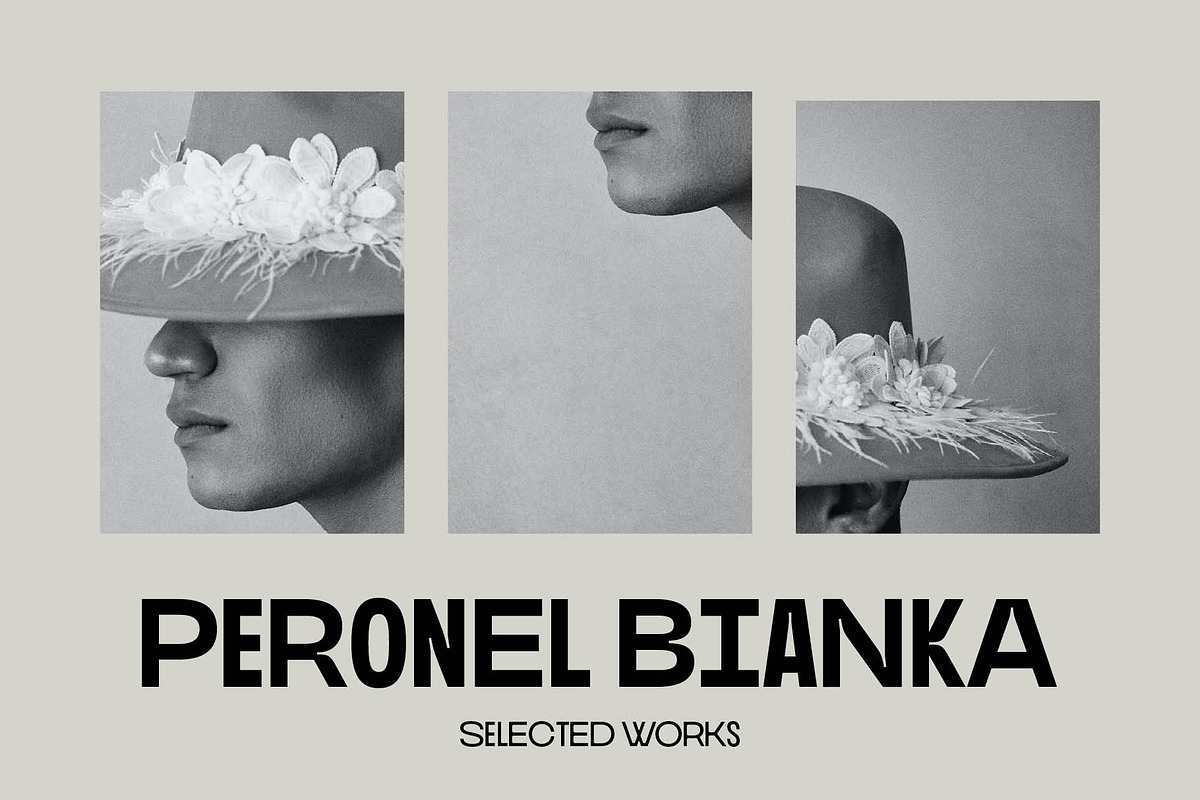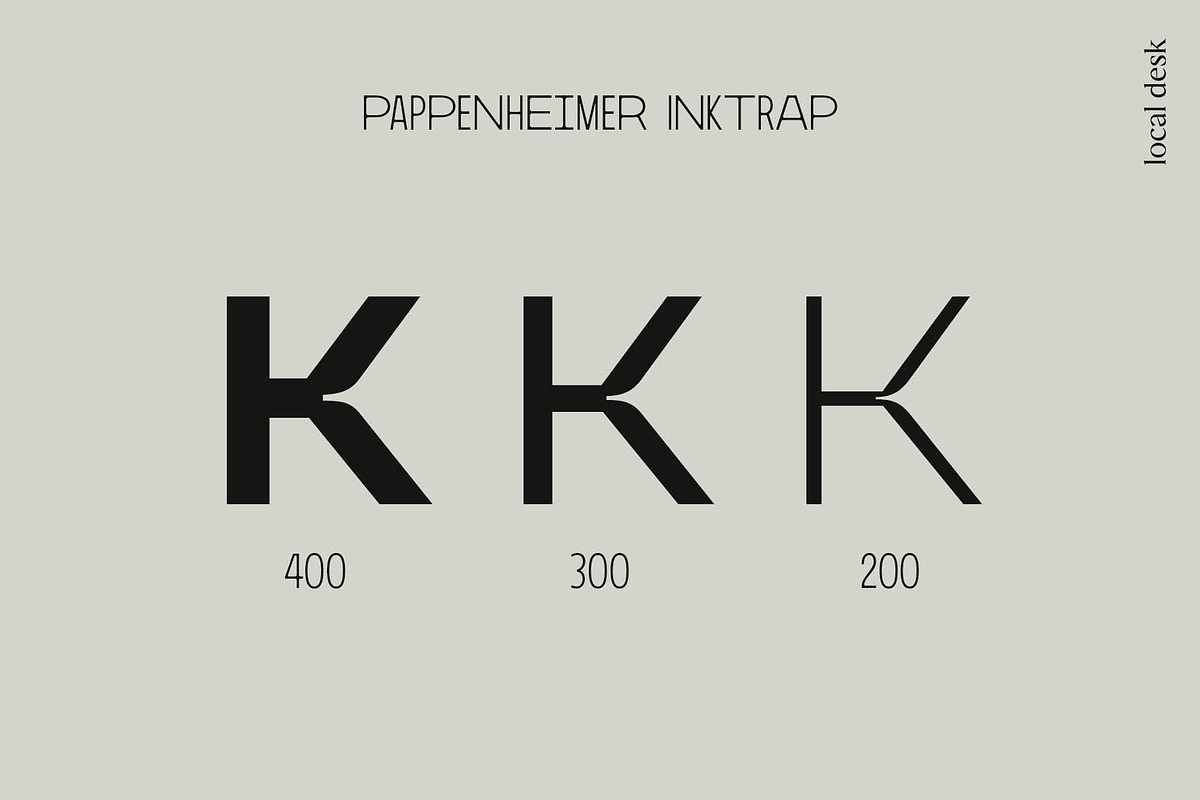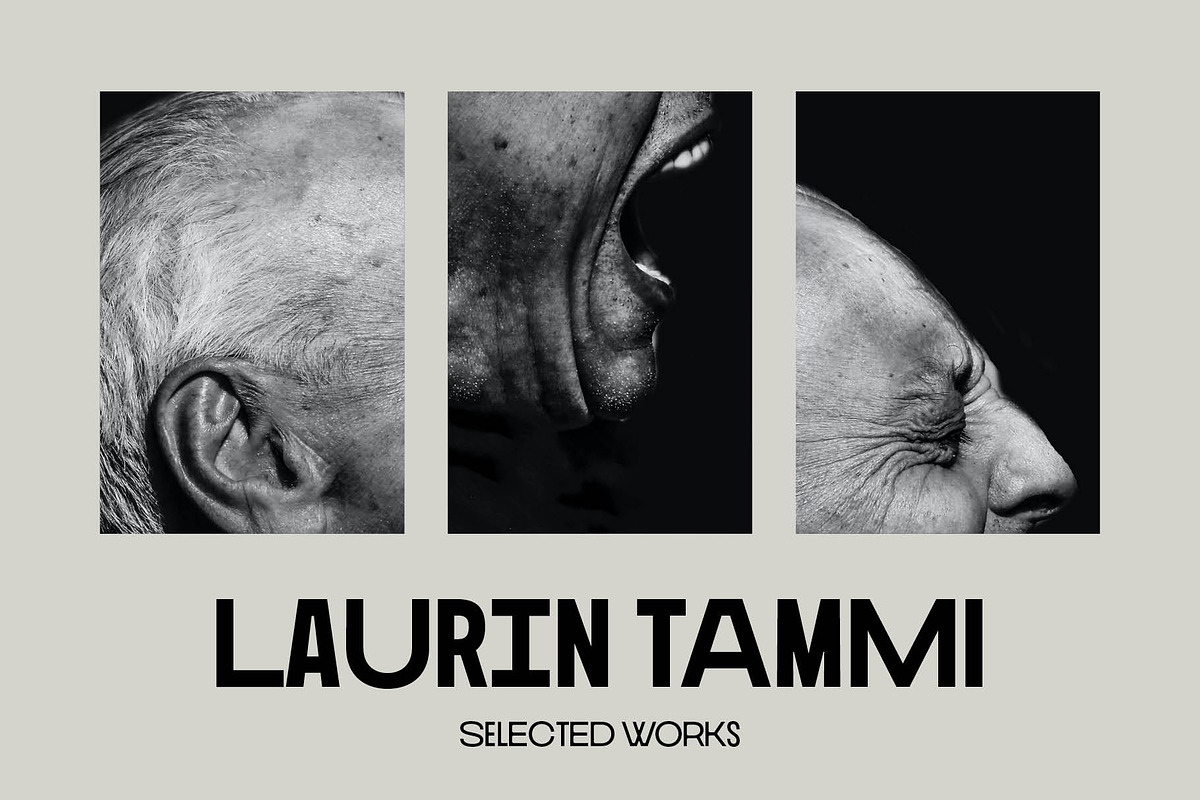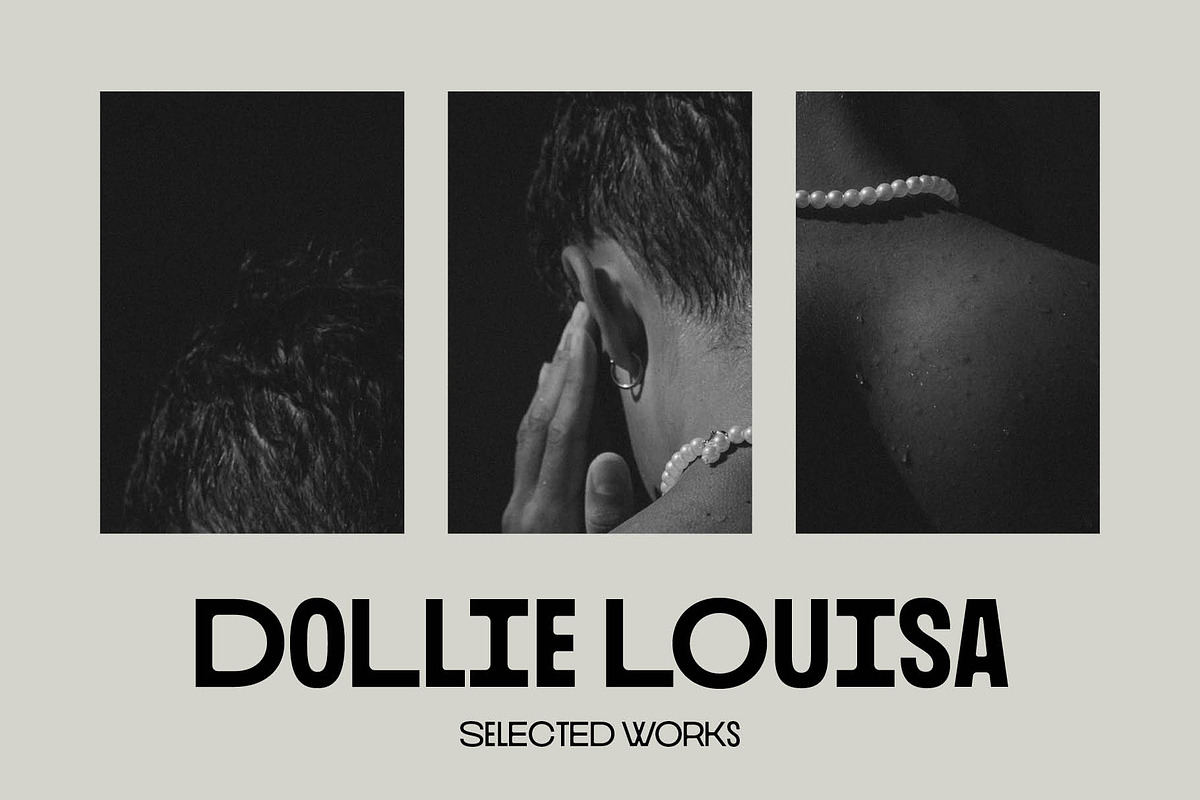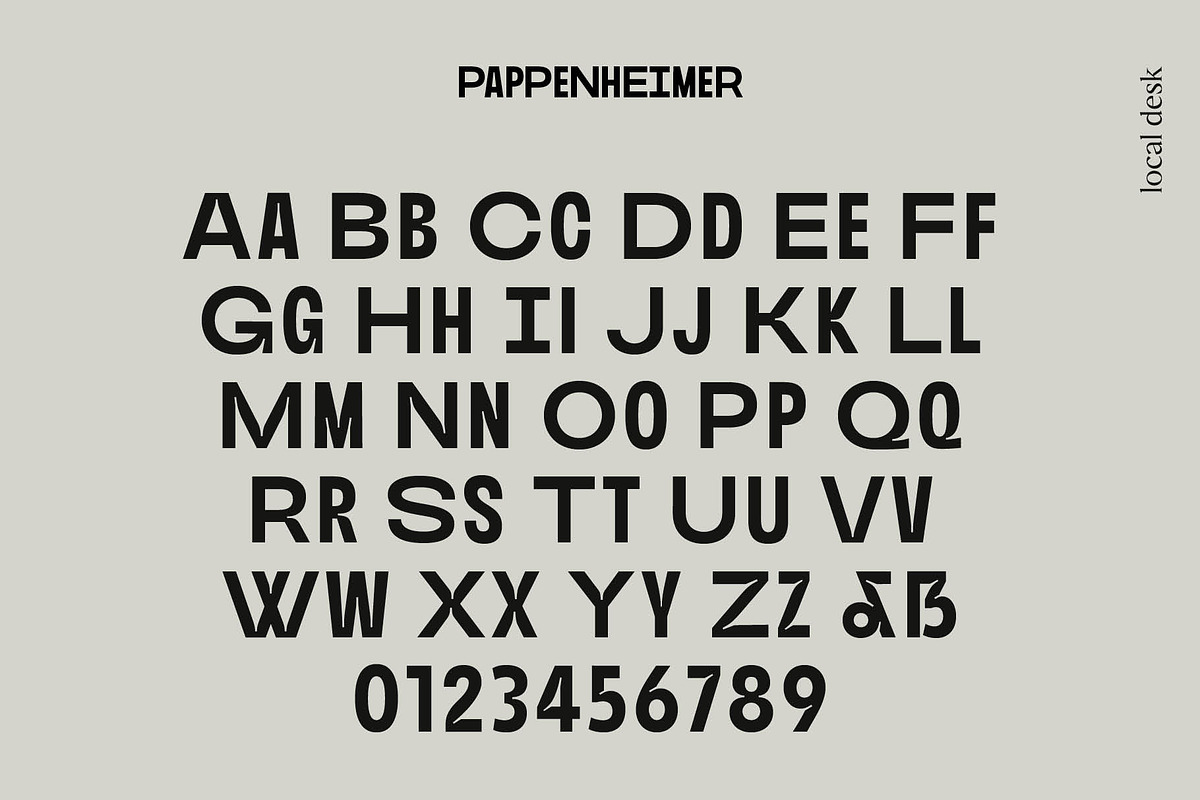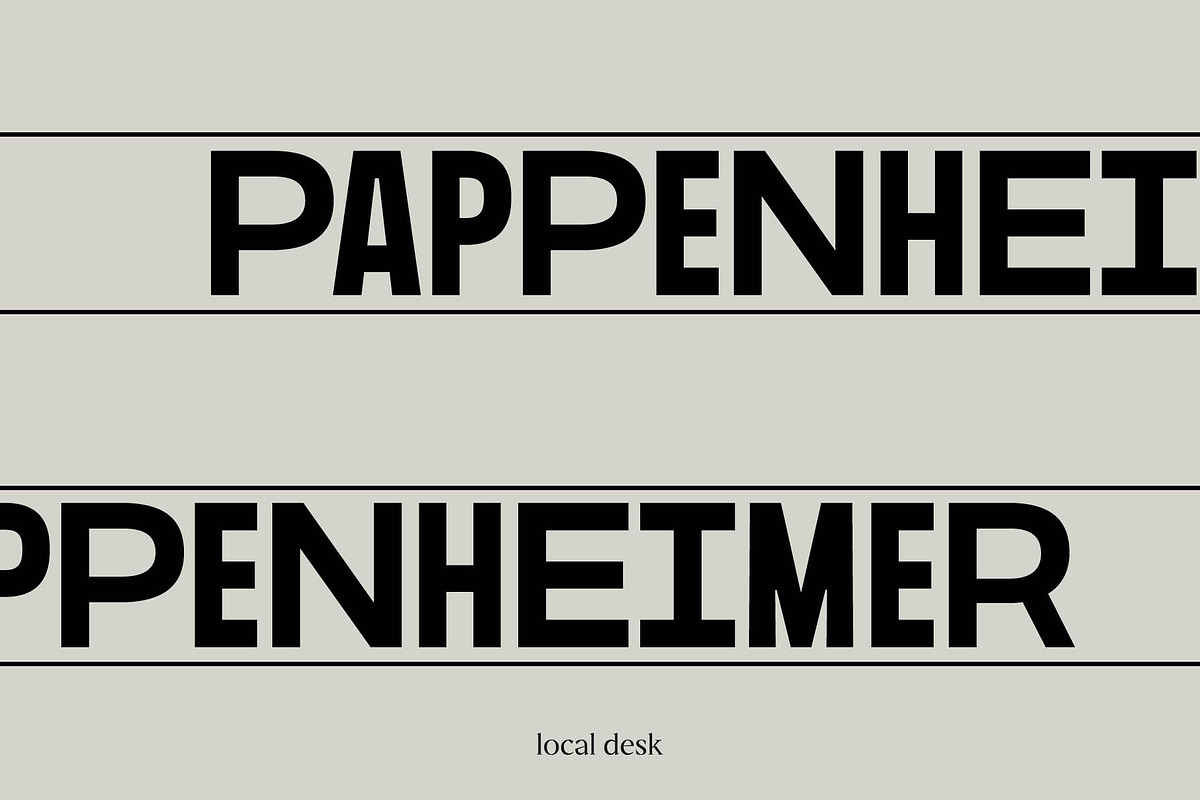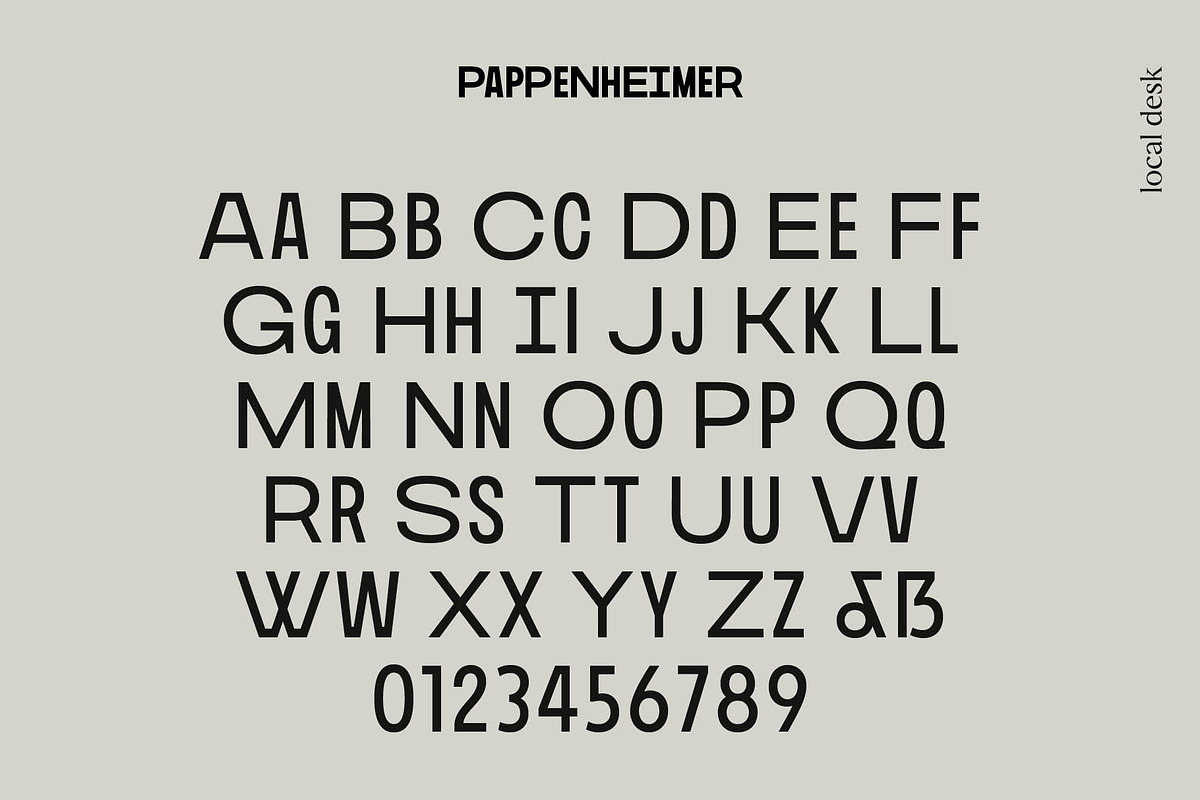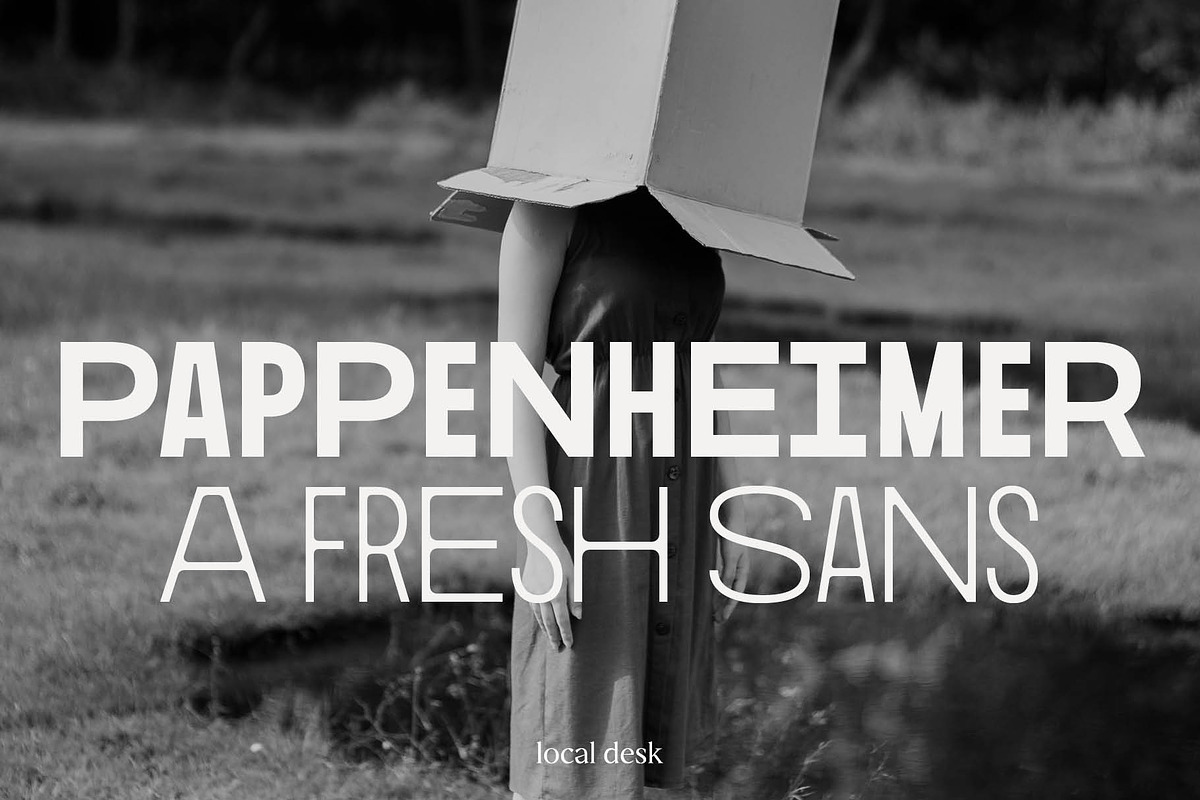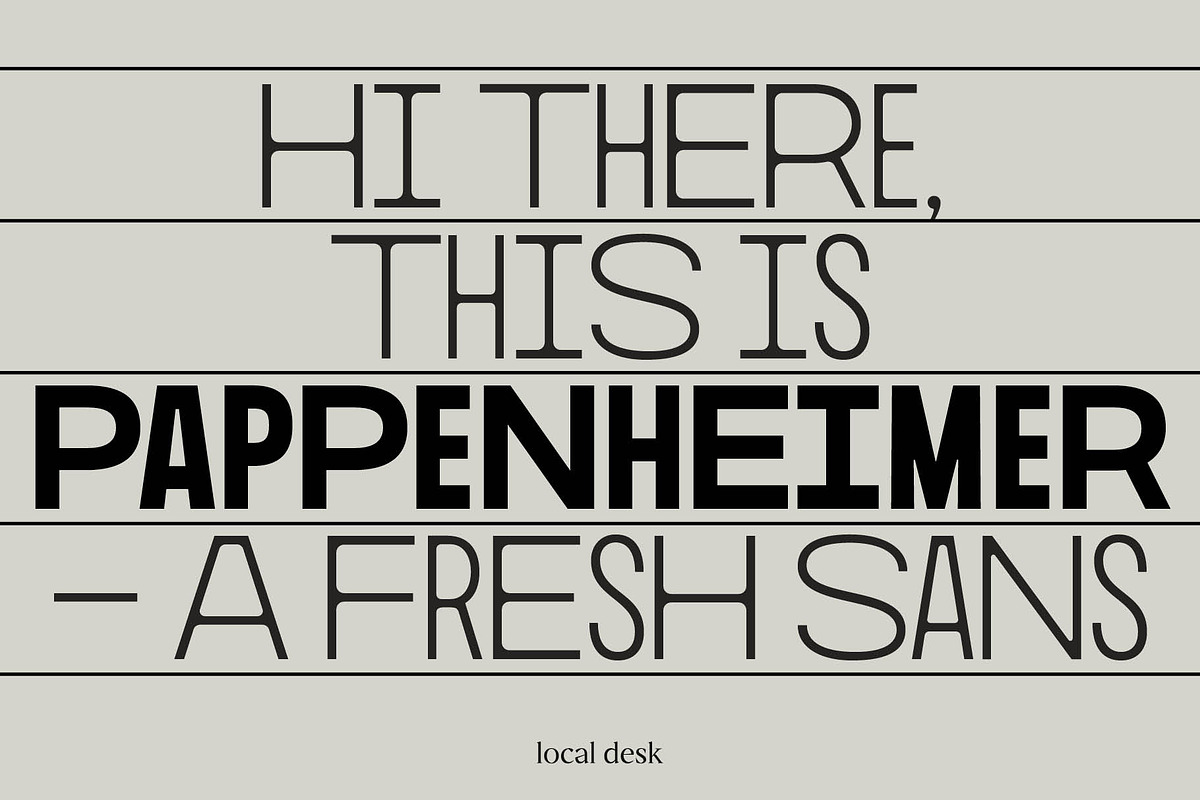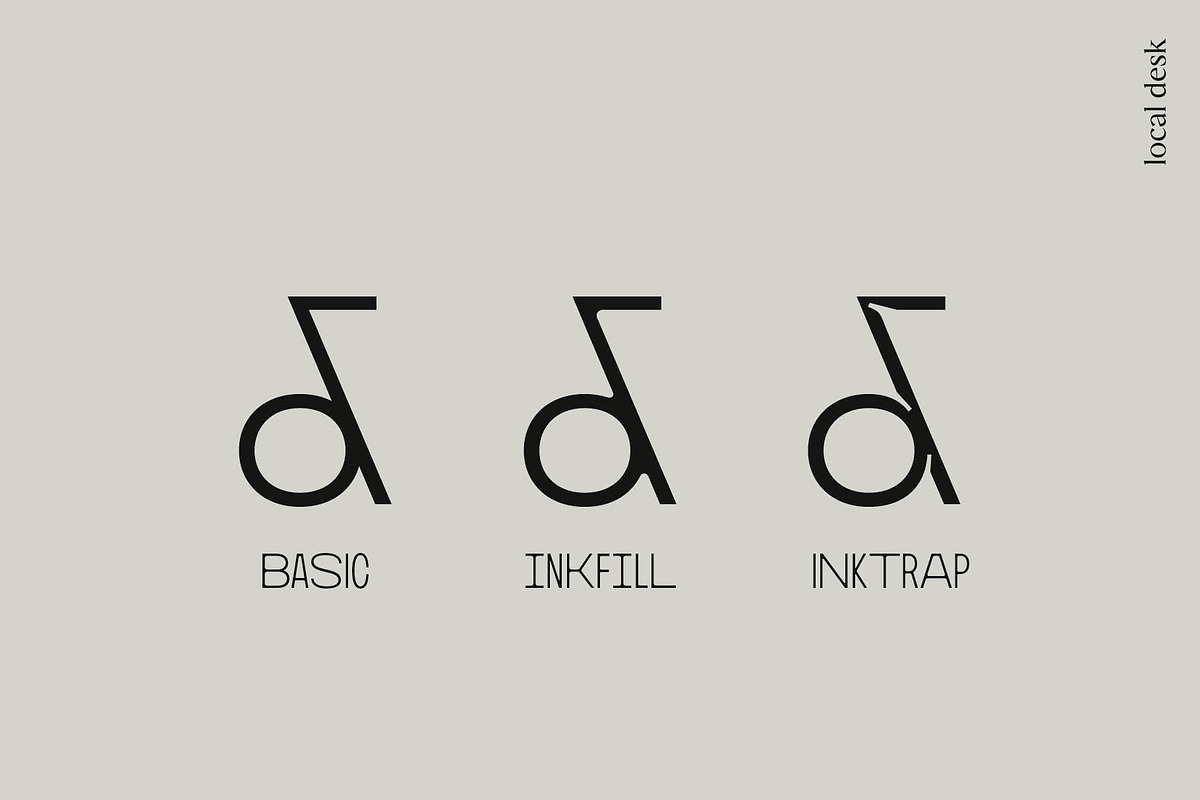
Pappenheimer – A Fresh Sans
Pappenheimer is a fresh and versatile display font and it comes in three styles—Basic, Inkfill, and Inktrap—each with three weights, offering lots of flexibility. Every letter from A-Z is available in two widths, adding even more variety to play with. This dual-width approach makes the typeface feel innovative and different. Its design is somewhat geometric, giving it a friendly yet slightly edgy feel—cool, but approachable.
Perfect for designs that want to stand out, Pappenheimer brings it's unique vibe. It’s approachable yet sophisticated, making it a perfect choice for projects that need to make an impact while maintaining a refined flair.
- A to Z in 2 Widths and 3 Weights
- 3 Styles: PH Basic / PH Inktrap / PH Inkfill
- Numbers & Punctuation & Basic Symbols
- Basic Non-English support